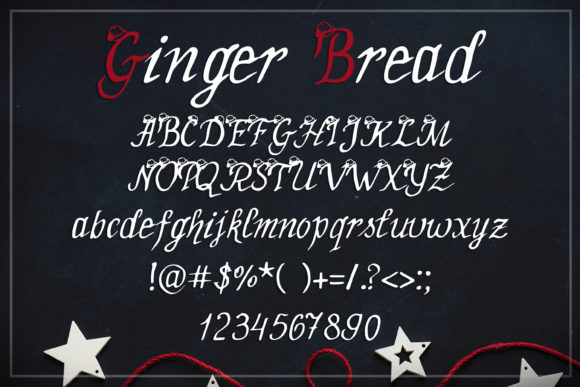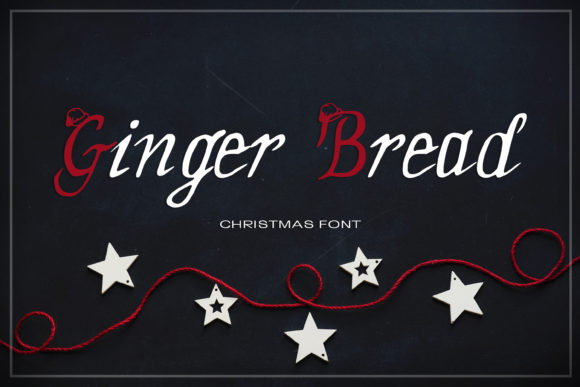
Ginger Bread Font: The Sweetest Addition to Your Design Collection
Are you a designer or crafter looking for a font that can add a touch of elegance and whimsy to your projects? Look no further than the Ginger Bread Font! This delicate and elegant handwritten font is quickly becoming a top choice among designers and crafters alike, and for good reason. Its distinct and fairytale-like letters make it the perfect addition to any design, from invitations and branding to packaging and more.
The Charm of Ginger Bread Font
So, what sets the Ginger Bread Font apart from other fonts on the market? For starters, its unique and intricate lettering style is sure to capture the attention of anyone who sees it. The font’s delicate lines and swirling flourishes give it a fairytale-like quality that’s perfect for creating designs that are both elegant and playful. Whether you’re designing a wedding invitation, a children’s book, or a product label, the Ginger Bread Font is sure to add a touch of magic to your project.
One of the things that makes the Ginger Bread Font so popular among designers and crafters is its incredible versatility. This font can be used in a wide range of projects, from formal and elegant designs to more playful and whimsical ones. Its delicate and elegant style makes it perfect for use in:
- Children’s books and educational materials
- Product labels and packaging
- Branding and advertising
Why Designers and Crafters Love Ginger Bread Font
So, why are designers and crafters falling in love with the Ginger Bread Font? Here are just a few reasons:
- Unique and eye-catching: The Ginger Bread Font’s unique and intricate lettering style is sure to capture the attention of anyone who sees it.
- Elegant and sophisticated: Despite its playful and whimsical feel, the Ginger Bread Font is also incredibly elegant and sophisticated, making it perfect for use in formal designs.
- Versatile: As mentioned earlier, the Ginger Bread Font can be used in a wide range of projects, from formal and elegant designs to more playful and whimsical ones.
- Easy to read: Despite its intricate and delicate style, the Ginger Bread Font is still incredibly easy to read, making it perfect for use in designs where legibility is important.
Tips for Using Ginger Bread Font
Now that you’ve fallen in love with the Ginger Bread Font, here are a few tips for using it in your designs:
- Use it sparingly: While the Ginger Bread Font is incredibly versatile, it can also be overwhelming if used too much. Try using it sparingly to add a touch of elegance and whimsy to your designs.
- Pair it with other fonts: The Ginger Bread Font pairs perfectly with other fonts, such as sans-serif fonts and script fonts. Try pairing it with a bold font to create a striking contrast.
- Experiment with colors: The Ginger Bread Font looks stunning in a wide range of colors, from bold and bright to soft and pastel. Try experimenting with different colors to find the perfect look for your design.
| Font Name | Ginger Bread Font |
In conclusion, the Ginger Bread Font is a delicate and elegant handwritten font that’s perfect for designers and crafters looking to add a touch of elegance and whimsy to their projects. Its unique and intricate lettering style, versatility, and ease of use make it a top choice among designers and crafters alike. Whether you’re designing a wedding invitation, a children’s book, or a product label, the Ginger Bread Font is sure to add a touch of magic to your project. So why wait? Fall in love with the Ginger Bread Font today and start creating spectacular designs!